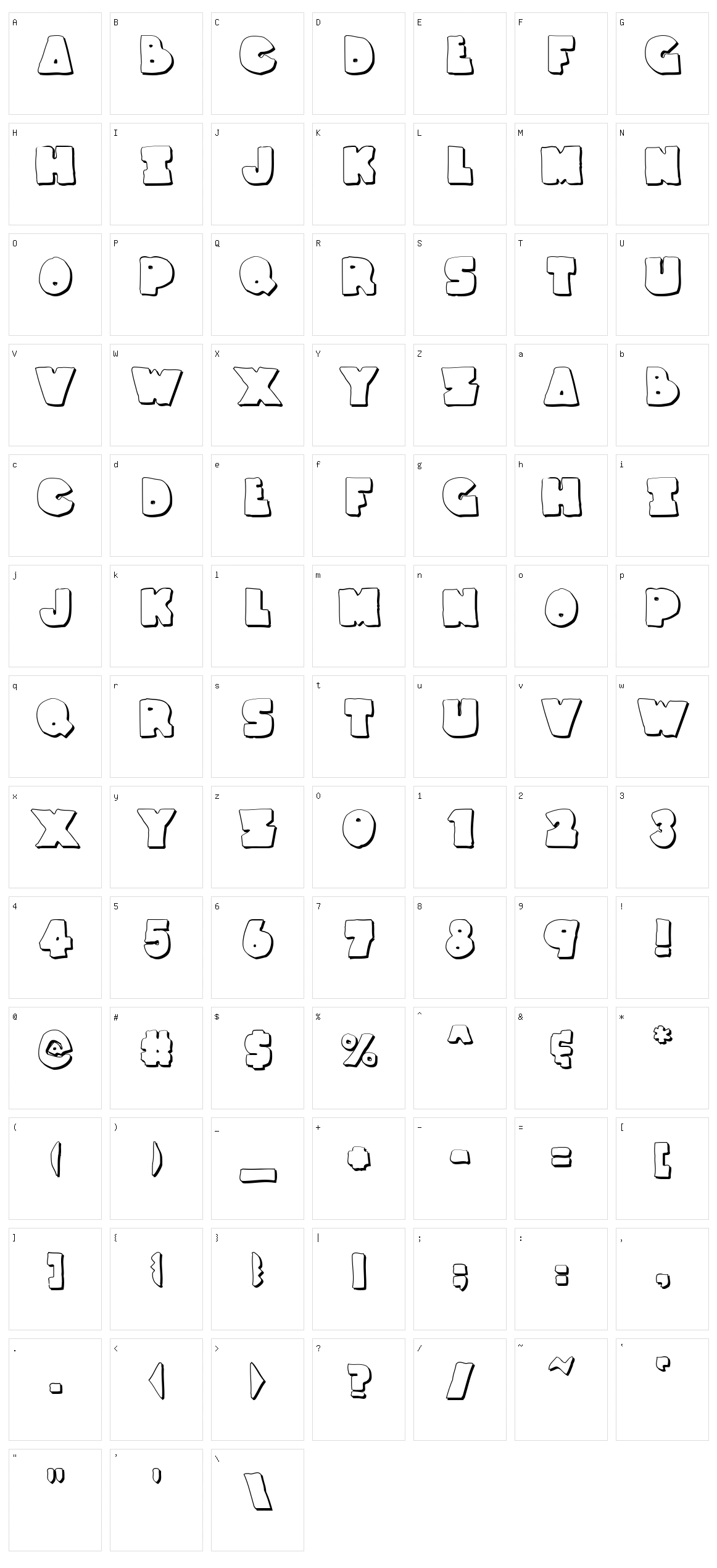
THUNDER THIGHS
A TrueType Font by S. John Ross
Thunder Thighs is a goofy, friendly sort of font, reminiscent of cartoon logos and the like from the late 1970s. Those kinds of shapes, and the comforting nature of huge amounts of black ink on formerly-blank paper, made this one a particularly enjoyable one to create. I drew it with a 0.8mm Pigma and then blackened it with my trusty Sharpie; the whole process was a kind of reversion to childhood. Same principle as "comfort food," I suppose - a valuable concept in these troubled times.
Thunder Thighs is a full keyboard set with a few essential extras like smartquotes and dashes.